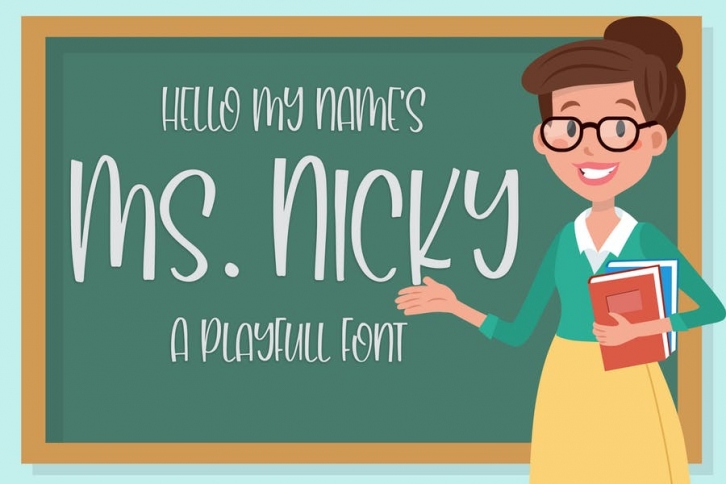
Introducing of our new product the name is Ms. Nicky A Playful Font. Ms. Nicky inspired by modern calligraphy this font is a fun theme very good for Calligraphy serif, poster, food, wedding, branding etc
MULTILINGUAL ACCENT :
ØÆøæ¢ÃÅ’Å“ÃÄ‚Ã‚Ã€Ã„Ä„Ã…ÃƒÇ¼Ä†ÄŒÃ‡ÄˆÄŠÄŽÃ‰Ä”ÄšÃŠÃ‹Ä–ÃˆÄ˜ÄžÄœÄ¢Ä Ä¤ÃĬÎÃİÌĮĨĴĶĹĽĻĿŃŇŅÑÓŎÔÖÒÅǾÕŔŘŖŚŠŞŜȘŤŢÚŬÛÜÙŰŲŮŨẂŴẄẀÃŶŸỲŹŽŻáăâäà ąåãǽćÄçĉċÄéĕěêëėèęğÄģġĥÃîïìįĩĵķĺľļŀńʼnňņñóÅôöòőǿõŕřŗśšşÅșťţÅûüűùųůũẃŵẅáºÃ½Å·Ã¿á»³ÅºÅ¾Å¼